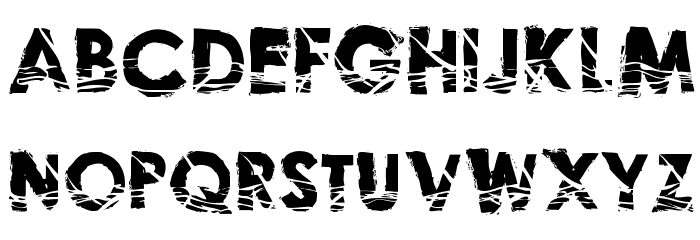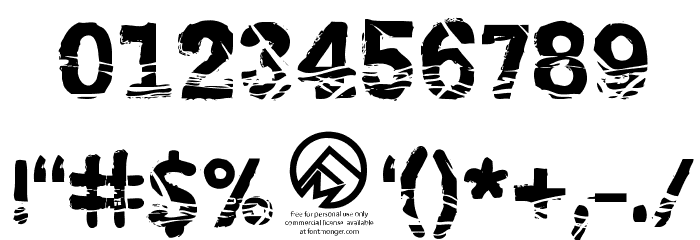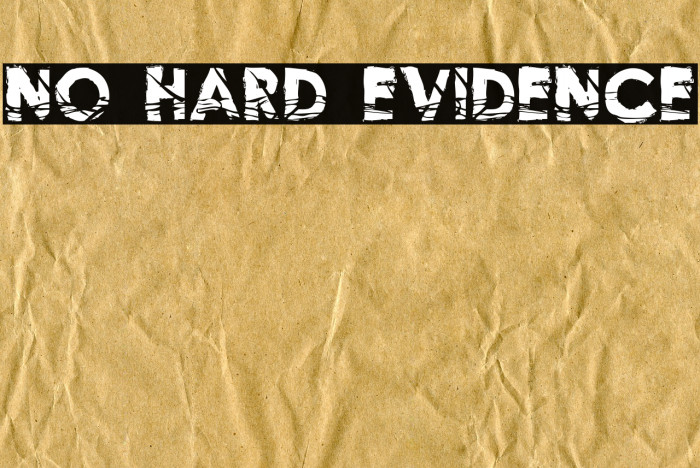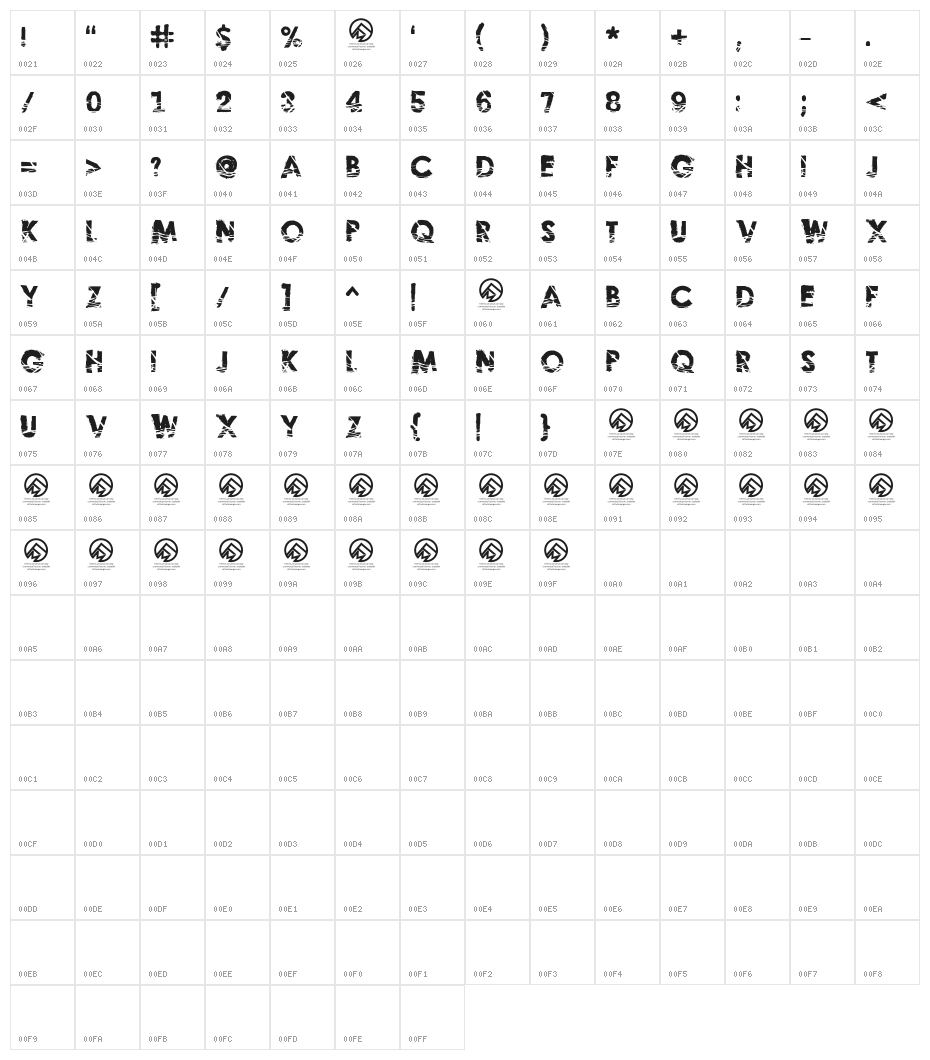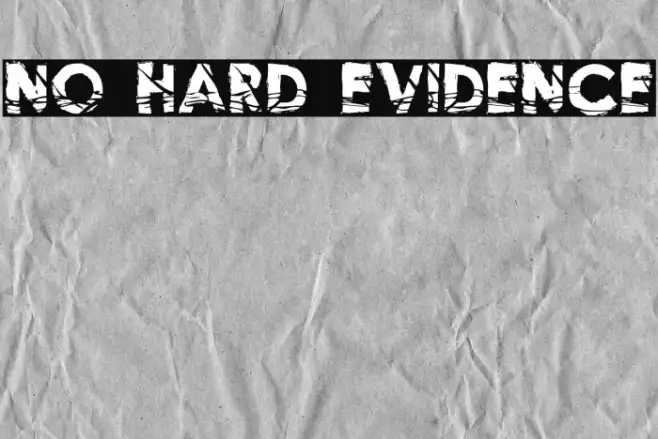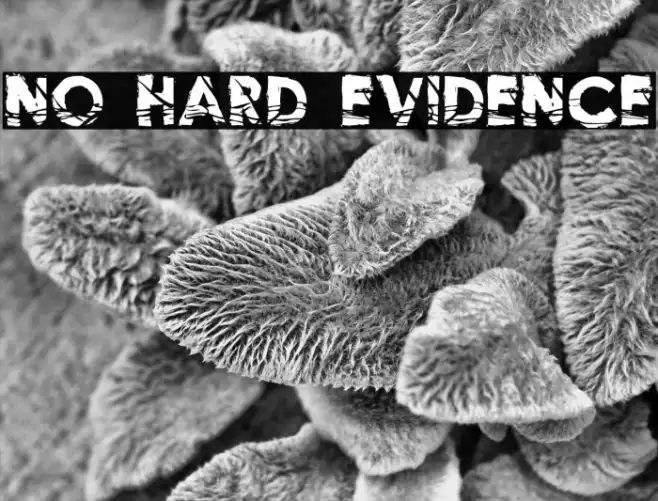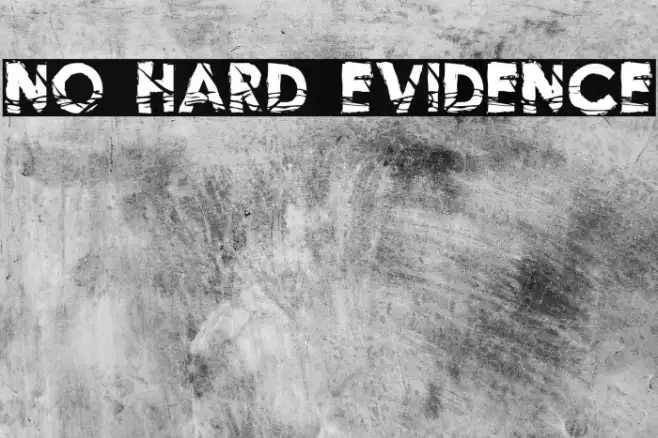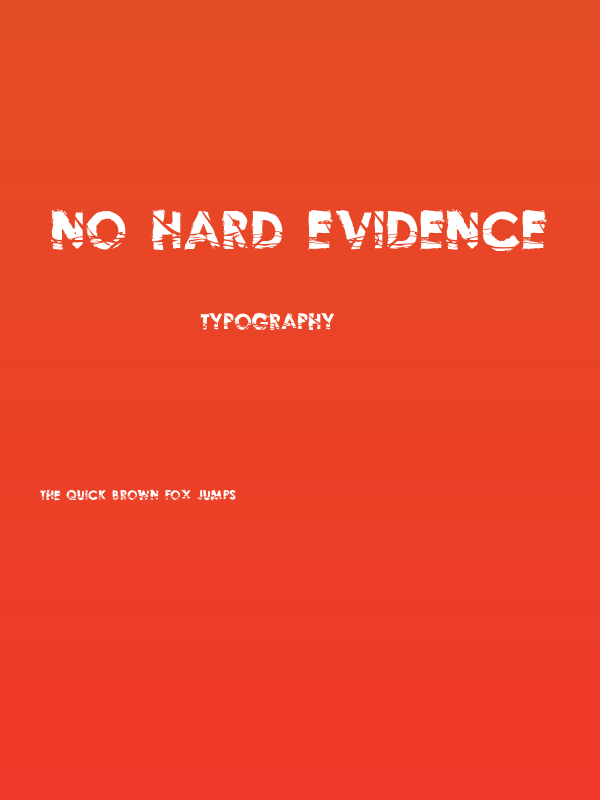
No Hard Evidence Font
This font features a bold and distressed style, characterized by rough, uneven edges and a textured appearance that suggests wear and tear. The uppercase and lowercase letters maintain a consistent height, creating a uniform look despite the chaotic surface. Numbers and special characters follow the same design, ensuring a cohesive aesthetic across all elements. The font's unique, grunge-inspired design makes it stand out, offering a sense of ruggedness and individuality. Its bold presence is ideal for projects that require a strong visual impact, such as posters, album covers, or branding for edgy products.
A bold, distressed font with a grunge-inspired, textured appearance.
- Proposed Projects: Ideal for posters, album covers, edgy branding, and any project needing a strong visual impact.
- Overall Style: Grunge, Distressed